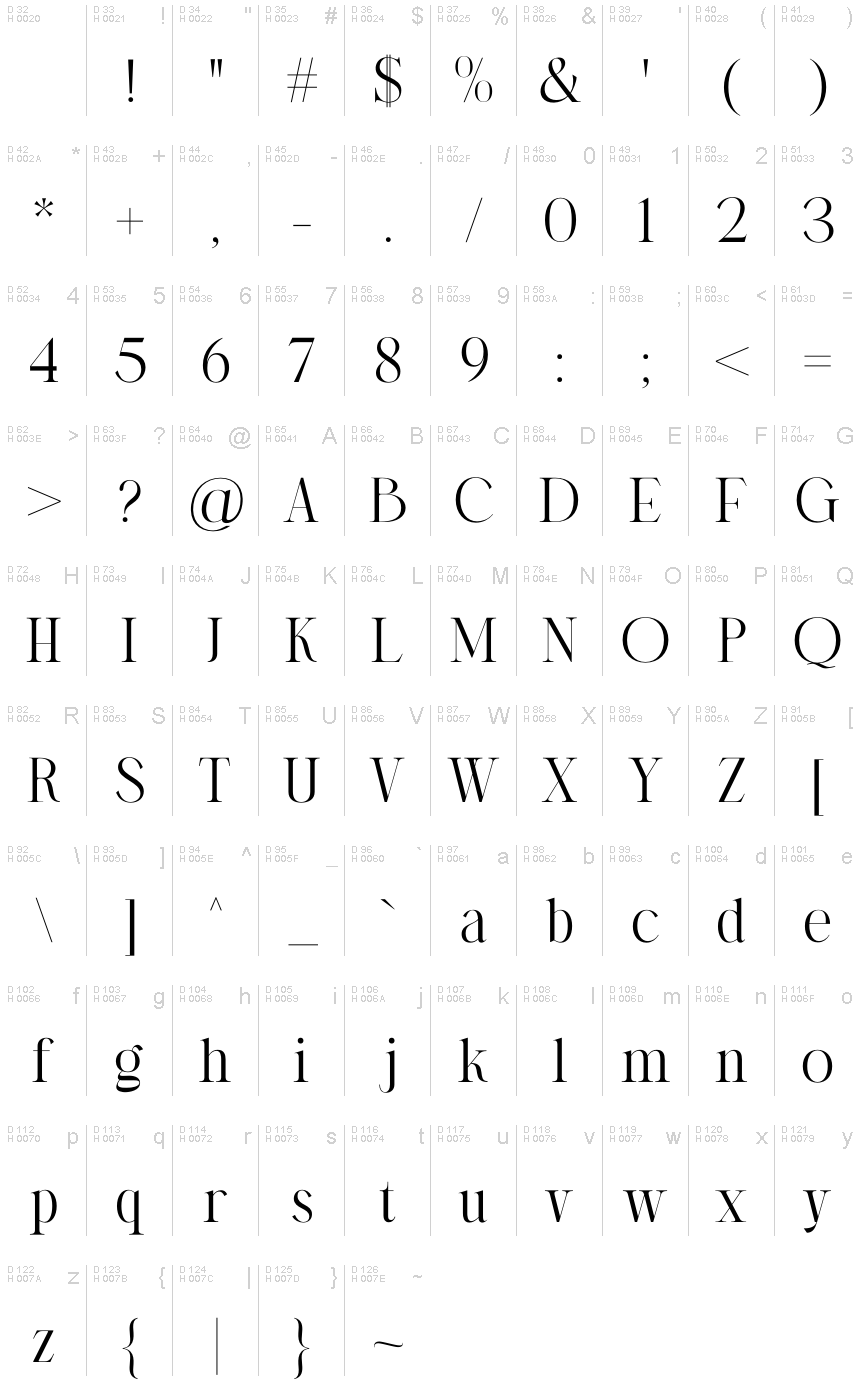
TROPICAL ROTHELA
Tropical Rothela, a captivating serif font designed by Storytype Studio, captivates with its distinctive charm. Blending classic elegance and modern refinement, this condensed typeface exudes a sense of timeless sophistication. Its striking letterforms, defined by sharp serifs and precise spacing, create a bold and impactful visual presence. Tropical Rothela effortlessly conveys a sense of tropical allure, making it a versatile choice for a wide range of design applications.
This font's versatility shines through its adaptability to diverse design contexts. Its condensed width and crisp, elegant aesthetic lend themselves beautifully to branding, editorial layouts, and packaging design. Tropical Rothela's ability to command attention and convey a sense of refined luxury makes it an excellent selection for luxury product labels, high-end magazine spreads, and elegant event invitations. Whether you're crafting a captivating book cover or designing a memorable logo, Tropical Rothela's unique charm is sure to leave a lasting impression.